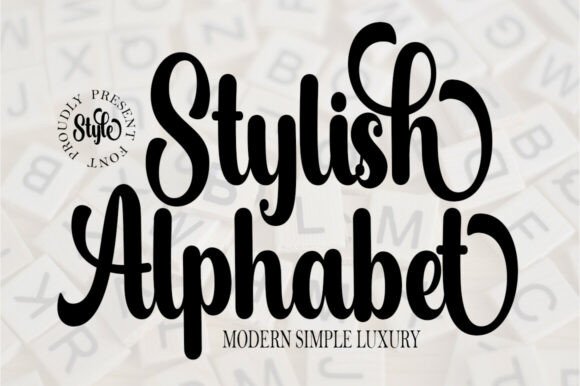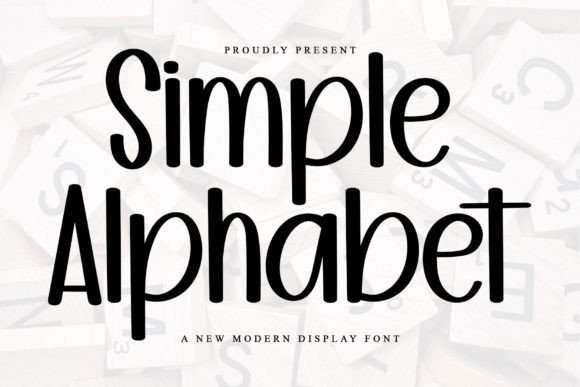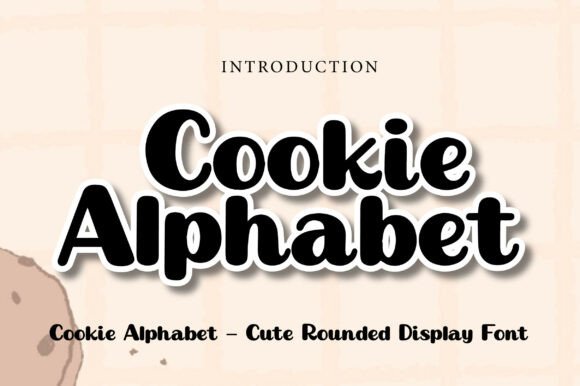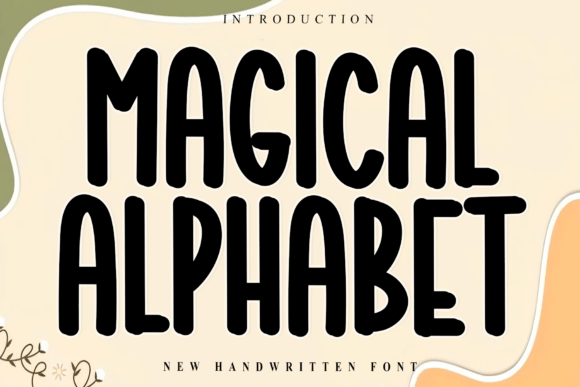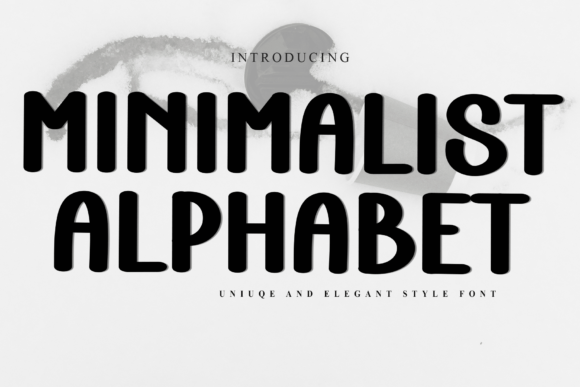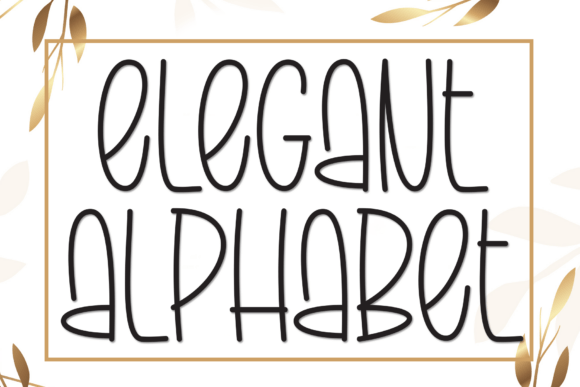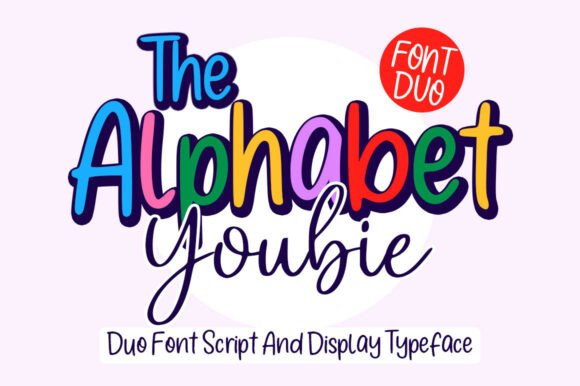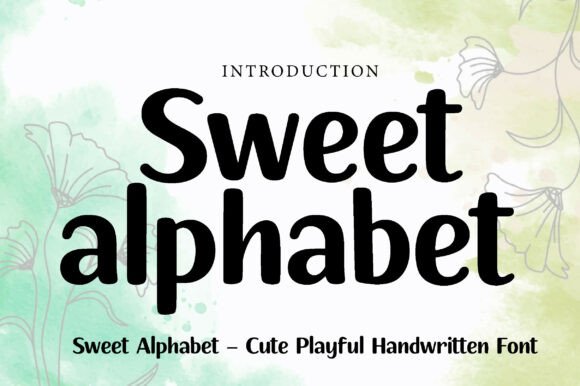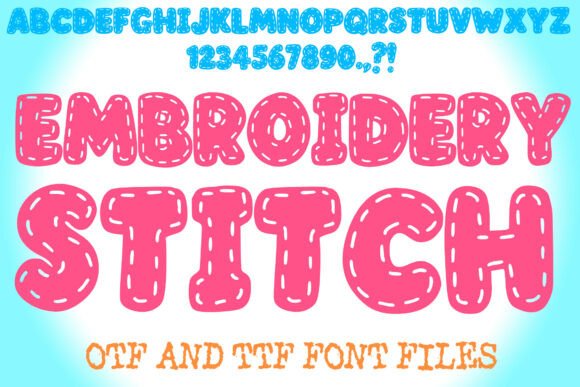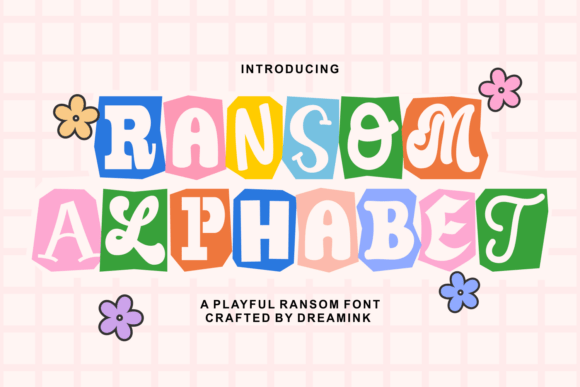
Whether you’re a seasoned graphic designer or a passionate crafter just getting started, the right font can completely transform your work. This curated collection brings together 22 remarkable alphabet font styles — each one free to download — covering everything from elegant handwritten scripts and playful bubble letters to vintage display faces and full-color decorative fonts. Whatever your project calls for, you’ll find a typeface here that fits perfectly and makes your designs feel polished, personal, and truly one of a kind. Let’s dive in.
1. Stylish Alphabet Font
Stylish Alphabet is the kind of typeface that does the heavy lifting for you. Its graceful, flowing strokes and gently feminine character bring immediate sophistication to any design, whether you’re working on luxury branding, wedding invitations, boutique signage, or editorial titles. The soft curves never feel fussy — instead, they lend a natural elegance that scales beautifully from a delicate logo mark down to a printed label. Pair it with a clean serif body font to let its personality breathe, or set it large and alone against a textured background for maximum impact. Stylish Alphabet is equally at home on a high-end product label as it is on a heartfelt handwritten card. If your project needs poise and femininity without veering into overdone territory, this is the font to reach for.
My Recommendation: A reliable go-to whenever a project calls for timeless feminine elegance. It’s versatile enough for branding and refined enough for wedding design — a solid workhorse for any designer’s toolkit.
2. Simple Alphabet Font
Don’t let the name mislead you — Simple Alphabet is anything but plain. This festive, cheerful typeface brings a warm holiday spirit to every letter, complete with decorative details and playful character that immediately set the mood. It’s the perfect companion for greeting cards, seasonal gift tags, holiday packaging, and themed social media graphics. PUA encoding means you can unlock the full set of glyphs, ligatures, and special characters without any extra configuration, making it a designer-friendly choice straight out of the box. The nostalgic charm of its letterforms pairs beautifully with kraft paper textures, plaid patterns, and warm earthy palettes. If you need a font that instantly communicates celebration and joy without resorting to tired clichés, Simple Alphabet delivers every time.
My Recommendation: Best used for seasonal and celebratory projects where the font itself needs to carry mood. The PUA encoding is a genuine bonus for designers who want quick access to all glyphs.
3. Cookie Alphabet Font
Cookie Alphabet is comfort design at its finest. The ultra-thick, soft-edged letterforms feel like they’ve just come out of the oven — warm, rounded, and impossible not to love. Its hand-drawn irregularity gives it genuine personality without sacrificing legibility, and the heavy weight makes it a natural headline and display choice. Artisanal cookie brands, home-café Instagram headers, children’s book covers, and independent nursery branding all benefit enormously from this font’s cozy aesthetic. The friendly rhythm of its spacing ensures text flows naturally even in longer words or short phrases. Cookie Alphabet is the rare display font that manages to feel both premium and approachable at the same time, making it ideal when your brand needs warmth and distinctiveness in equal measure.
My Recommendation: A standout choice for food brands, craft businesses, and children’s content. The cozy, baked-goods aesthetic is distinctive enough to serve as a brand’s primary display font.
4. Magic Alphabet Font
Magic Alphabet earns its name. Every letterform in this meticulously crafted handwritten font carries a sense of whimsy and hand-crafted care that’s genuinely hard to replicate. It’s built for makers — the kind of designers who put their work on tote bags, hoodies, mugs, pouches, and phone cases and want the type to feel as personal and considered as the product itself. The enchanting character of Magic Alphabet makes any text feel like it was written with intention and love. Universal in sentiment, it works across a wide range of languages and messages without losing its distinctive charm. For artisans and independent creators who want their branding to feel personal rather than printed, this font is a dream tool that adds magic to even the most everyday words.
My Recommendation: Exceptional for makers and artisans selling handcrafted goods. The hand-drawn quality translates brilliantly to merchandise printing, sublimation, and embroidery applications.
5. Magical Alphabet Font
Where Magic Alphabet delights, Magical Alphabet impresses. This flowing, modern handwritten script is all about sophistication — smooth generous curves, graceful elongated strokes, and the unmistakable feel of a confident signature. It projects luxury without arrogance, making it the right choice for personal branding, photography watermarks, high-end wedding stationery, and editorial layouts where authenticity matters. The letterforms feel genuinely hand-drawn rather than digitally manufactured, which is a rare quality that shows up clearly in print. Set it large for dramatic effect or use it mid-weight for an understated, refined look. Magical Alphabet pairs naturally with clean modern serifs or minimal sans-serifs, creating a typographic balance that reads as both contemporary and timeless.
My Recommendation: My top pick for photographers, luxury wedding planners, and personal brand designers. The signature-like quality is immediately recognizable and elevates any project it touches.
6. Minimalist Alphabet Font
Minimalist Alphabet proves that restraint and character aren’t opposites. Its soft, distinctive strokes give it a unique identity that stands apart from generic clean-line fonts, while its carefully balanced proportions ensure it reads clearly across a wide range of applications — digital interfaces, printed stationery, craft labels, product packaging, and creative artwork alike. The natural feel of its letterforms gives it warmth that pure geometric sans-serifs often lack, making it approachable without being informal. Compatible with a broad range of design applications, Minimalist Alphabet is a genuinely versatile workhorse that adapts to different contexts while maintaining a consistent visual personality. If your design philosophy leans toward thoughtful simplicity with a human touch, this font belongs in your collection.
My Recommendation: Ideal for brand designers and creatives who want clean, modern typography that still has personality. Works particularly well for lifestyle brands, journals, and artisanal product labels.